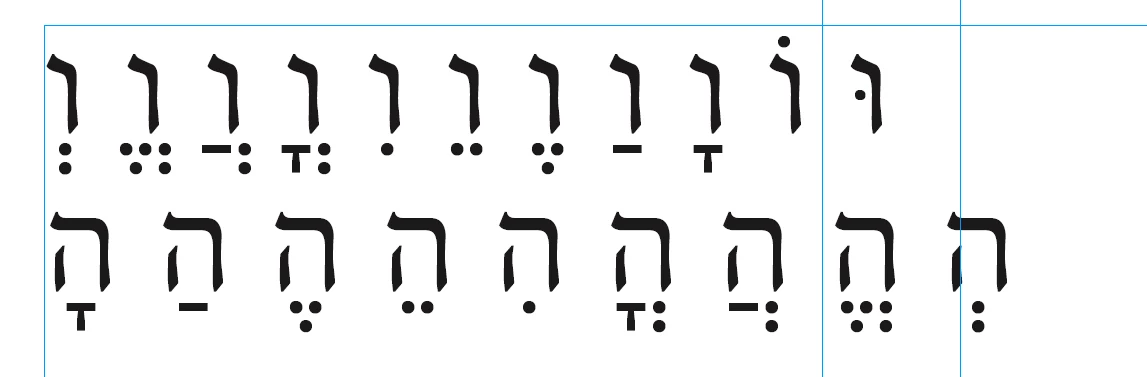
Fonts' OpenType features not working in Composite fonts in InDesign
When using any Hebrew font in InDesign, the diacritics (nikuds) are displayed in their correct location. This location is set within the fonts by using OpenType features such as ccmp (for glyph substitution) and mark (for glyph positioning). InDesign recognizes and applies these features.
The resulting text looks like that:
I put two guides to the right to indicate the end of text.
When this font is used as part of a Composite font in InDesign, the result is quite different. It seems like the ccmp feature is honored but the mark feature is not. (The first [last for non-Israelis] character on the first line is controlled with a ccmp feature to combine two characters.)
Here is how the composite font looks:
Notice how the diacritics shift and the length of the text increases. Some of this fluctuation can be mitigated by Diacritics Position feature in InDesign however this feature only works on a paragraph level and applies the correction to ALL diacritics uniformly whereas the whole point of the OpenType feature is to adjust diacritics on a character level.
Has anyone run into this problem and if so, is there something that can be done within the font or within InDesign to correct that (besides reporting it to Adobe who "will fix it in the next release")?
I am getting a similar problem, but using an Arabic font (Adobe Naskh) ... but I am not using a composite font
Composite fonts have never worked properly since they were introduced in the ME version in CS6. It's a pity as they would be very useful.
Hm... so no real solution then?
Not as far as I know. In our experience, mostly with Arabic, composite fonts work better if the Arabic font does not contain Roman characters. But as that's not really a solution, we usually end up using Grep styles.